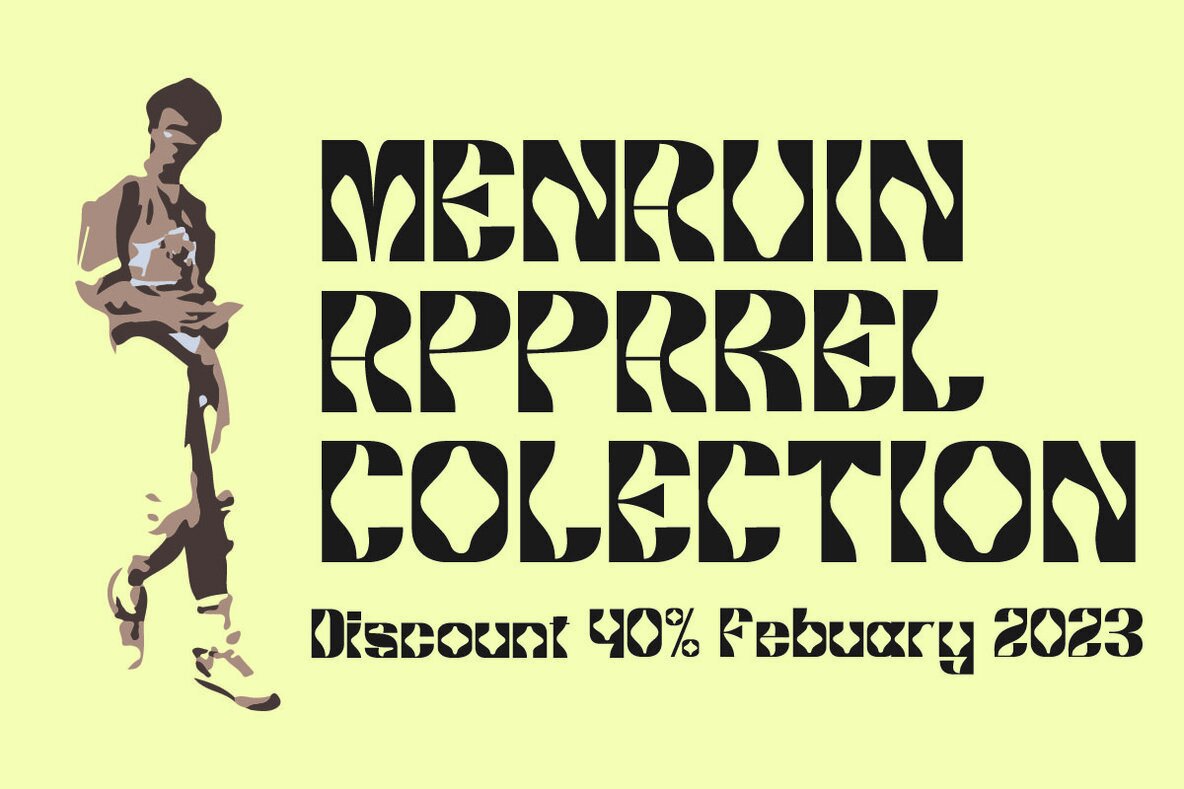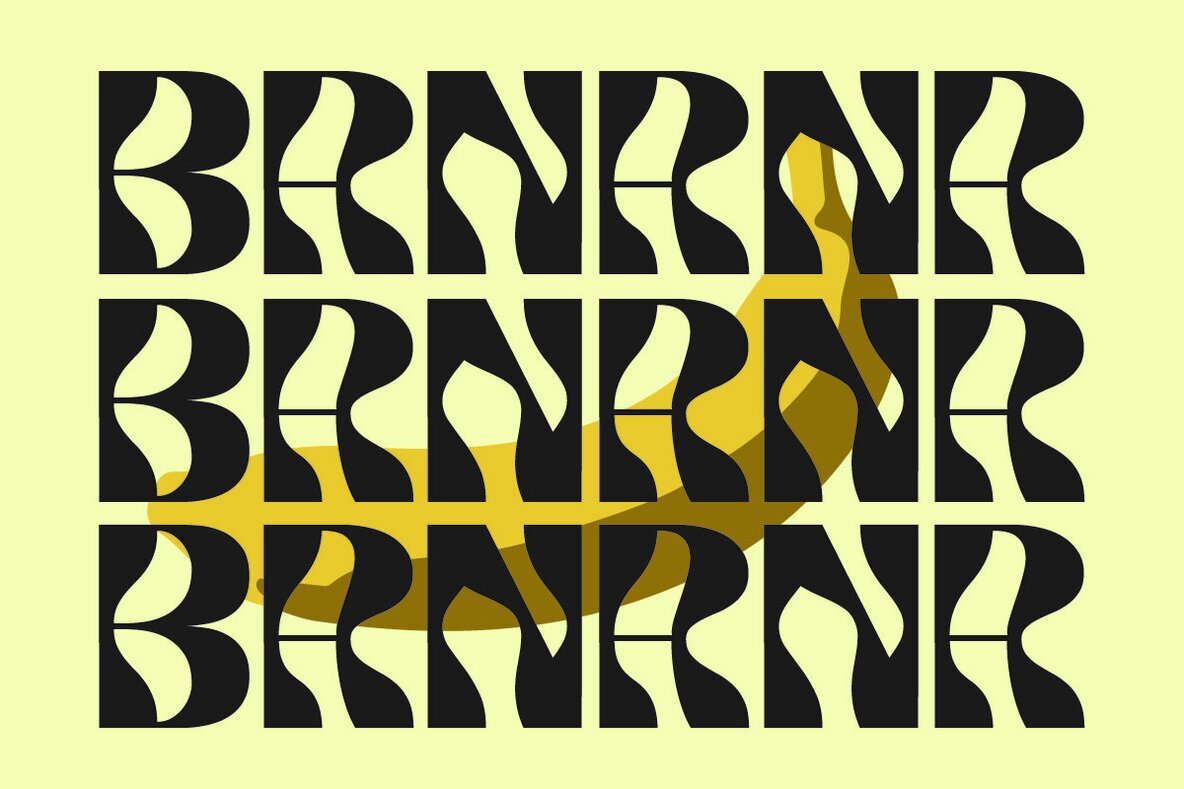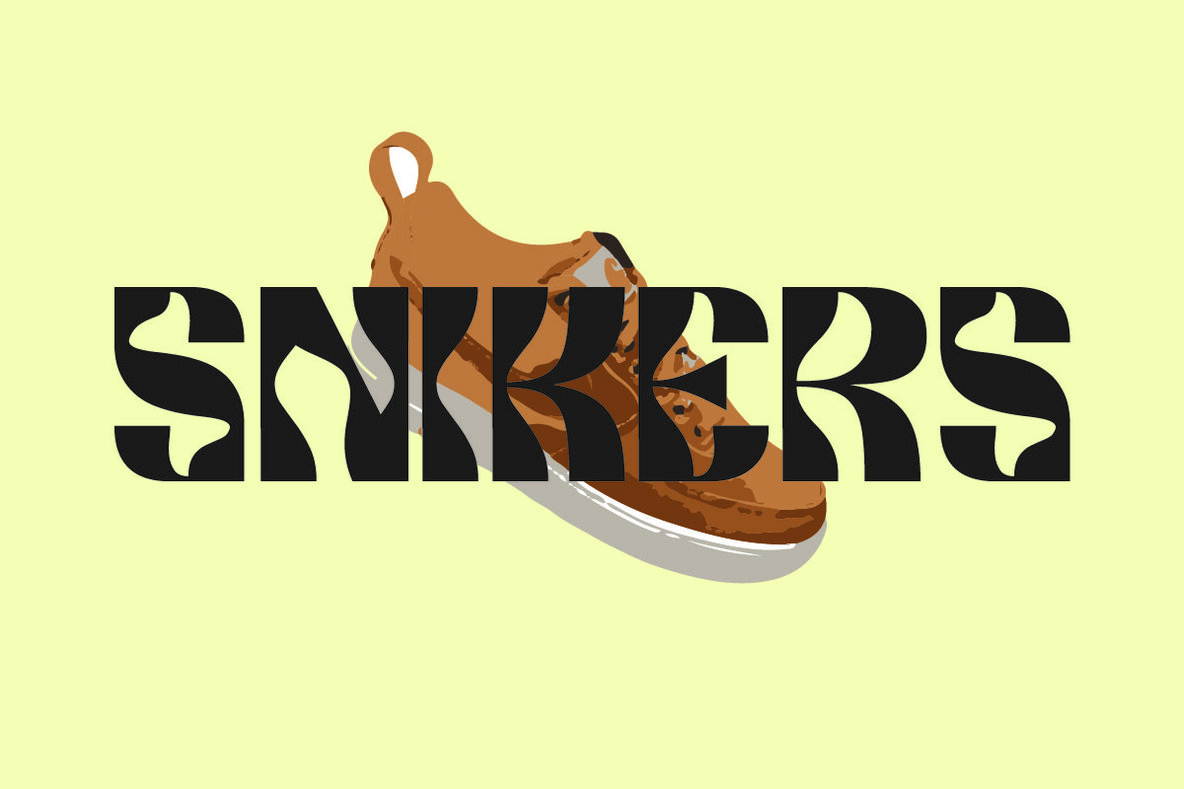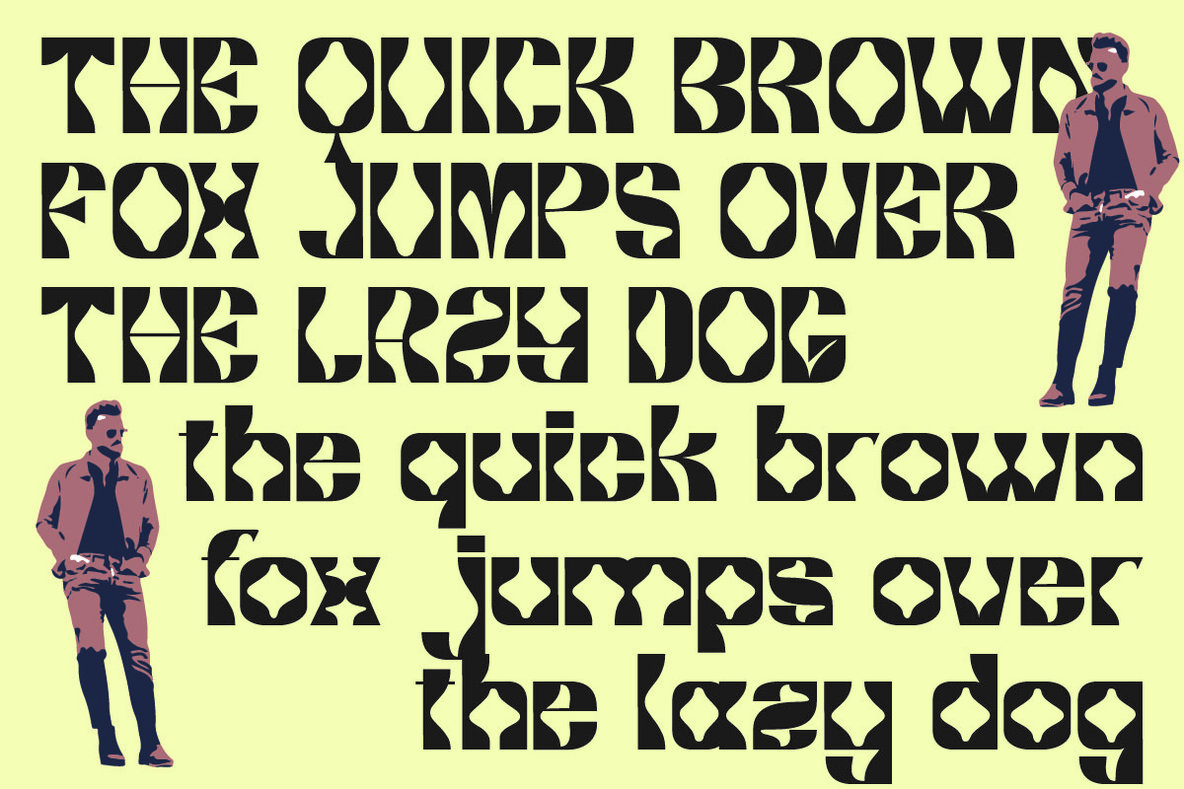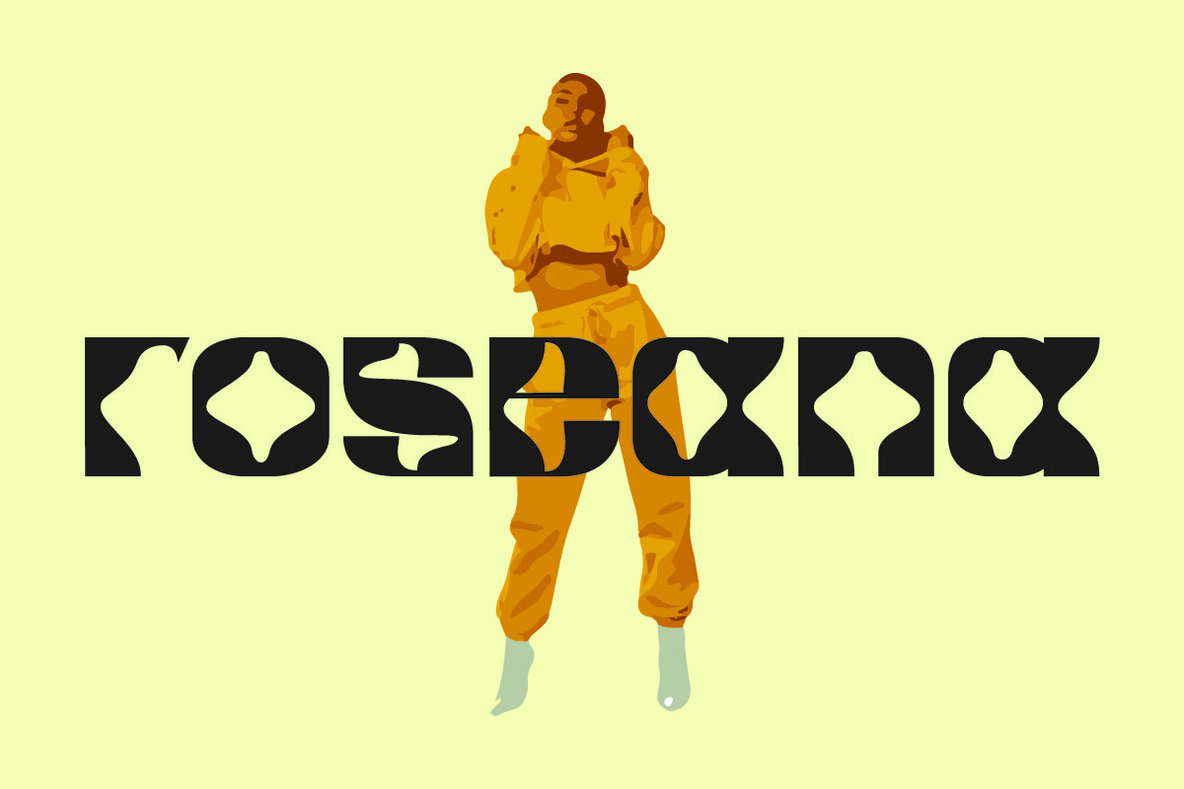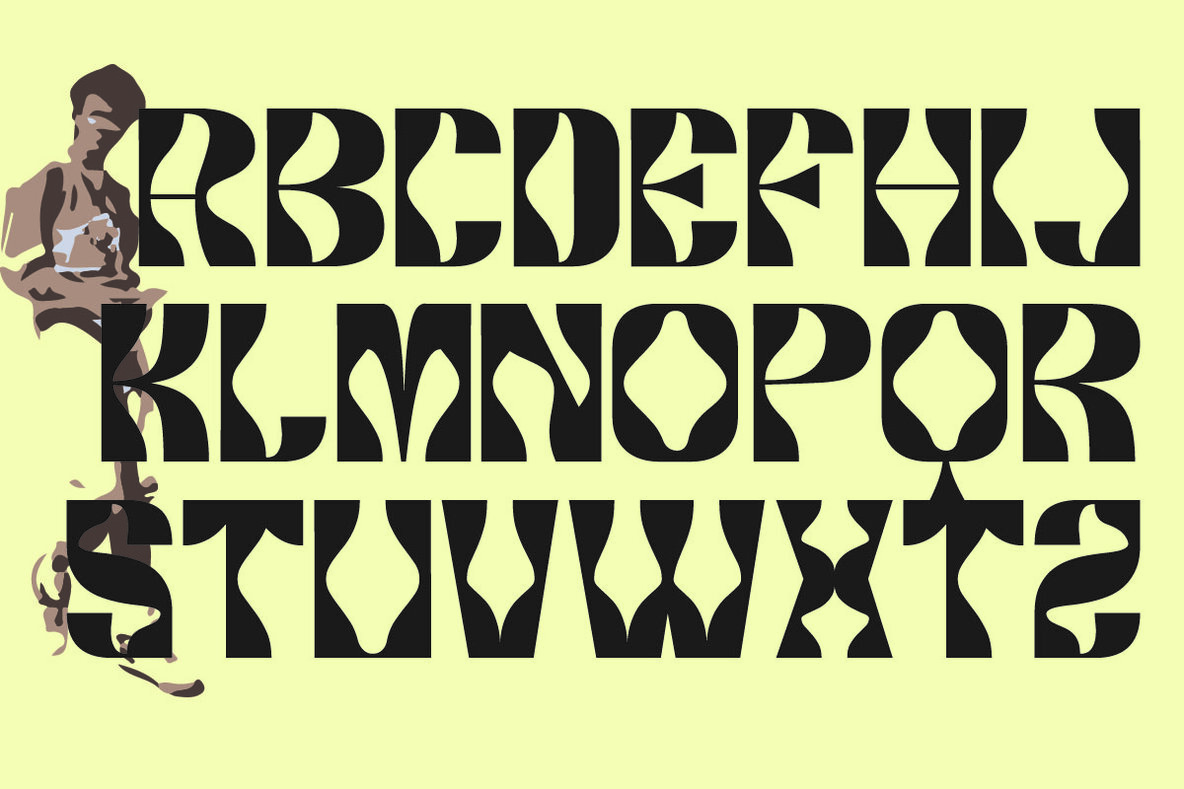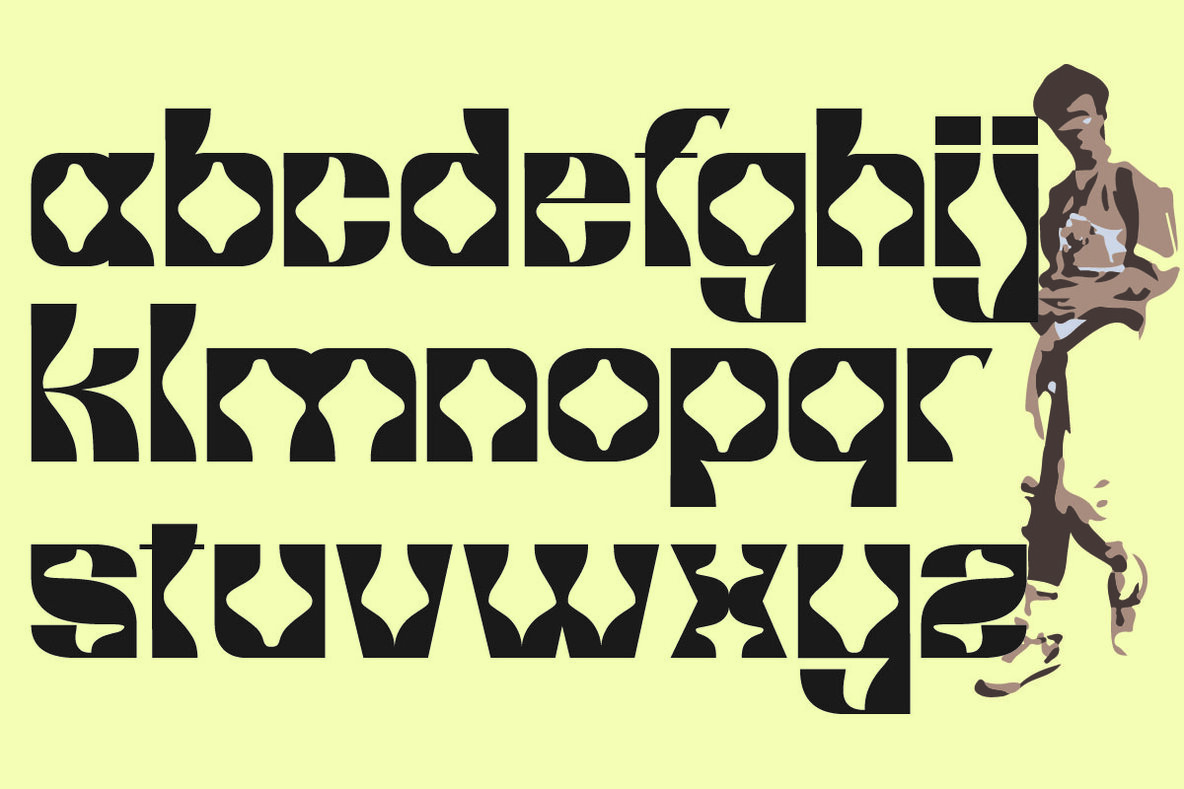
Gaincero Font
Gaincero Regular
Introducing the Gaincero Modern Display Vintage Font - a true masterpiece of typography! This font doesn't just tick all the boxes with its special glyphs, multilingual support, and stunning ornament details - it goes beyond the norm, delivering unparalleled versatility and style. Whether you're designing a logo, creating a magazine header, or crafting a sleek product package, Gaincero has got your back. And did we mention that it works flawlessly in both large and small sizes? Trust us, this font is the secret weapon you didn't know you needed to elevate your design projects to the next level!